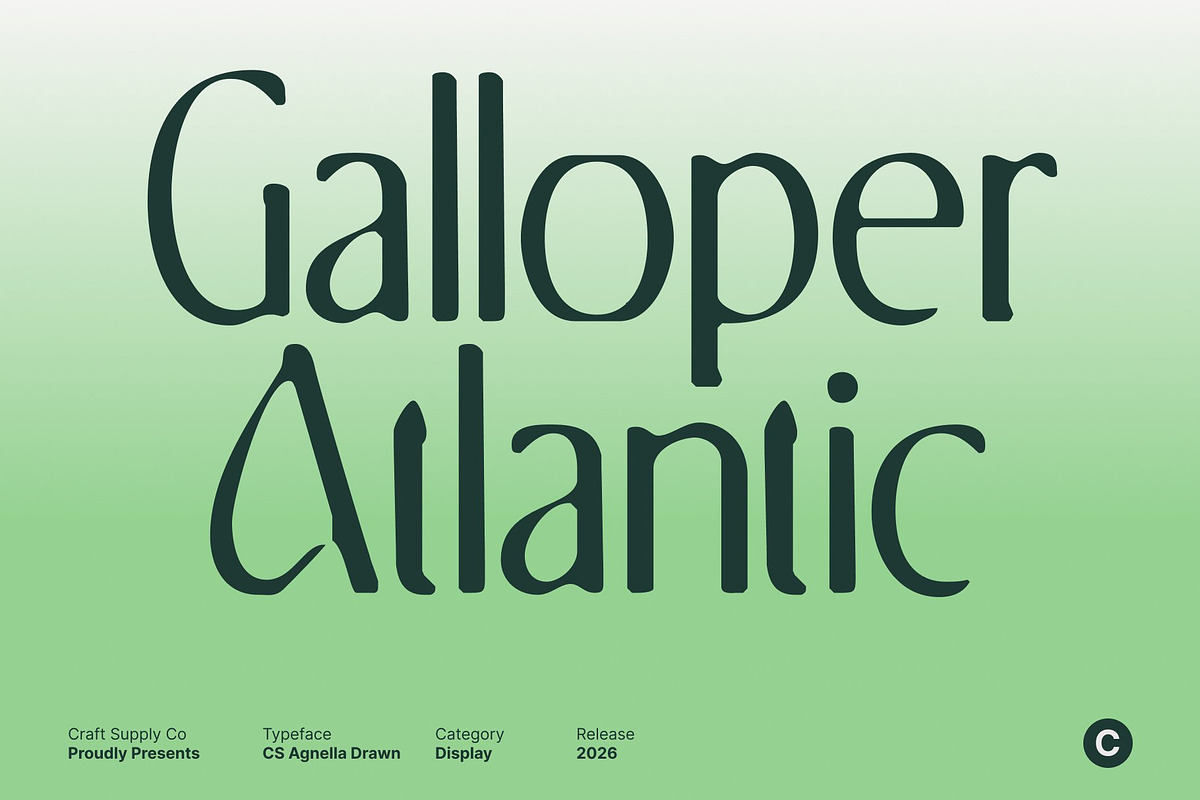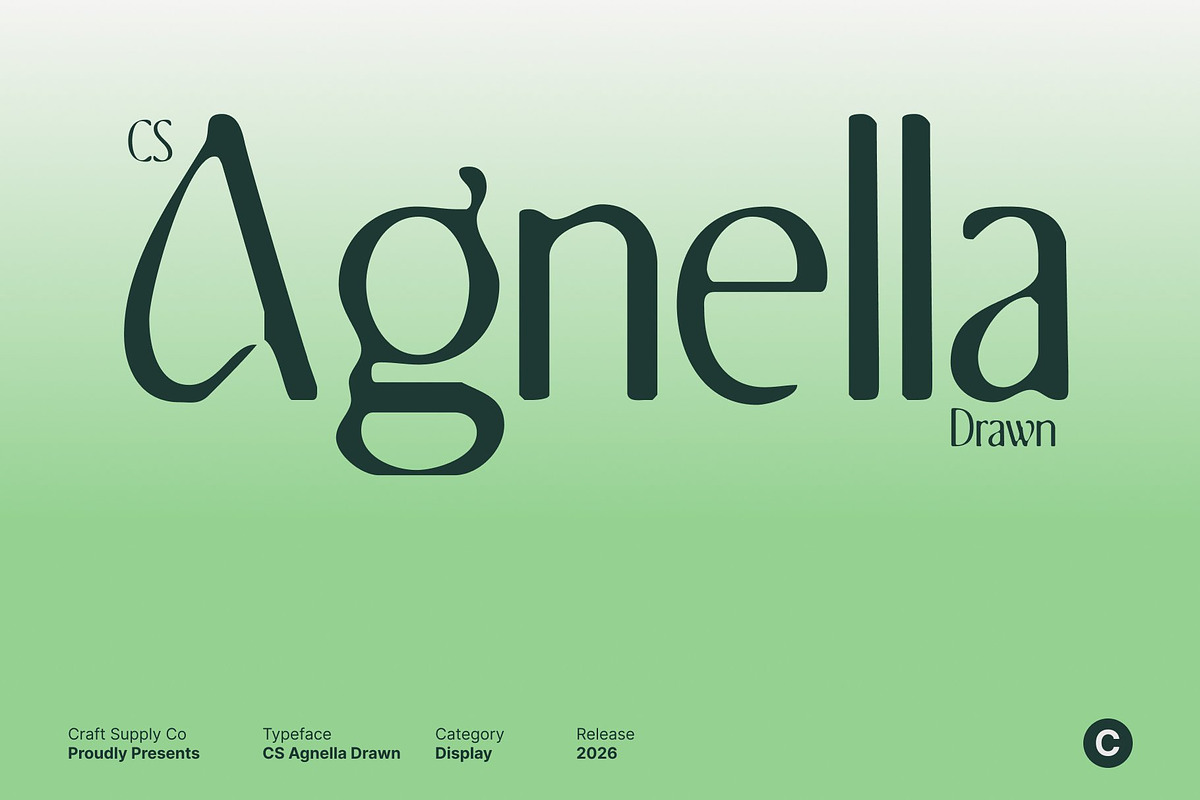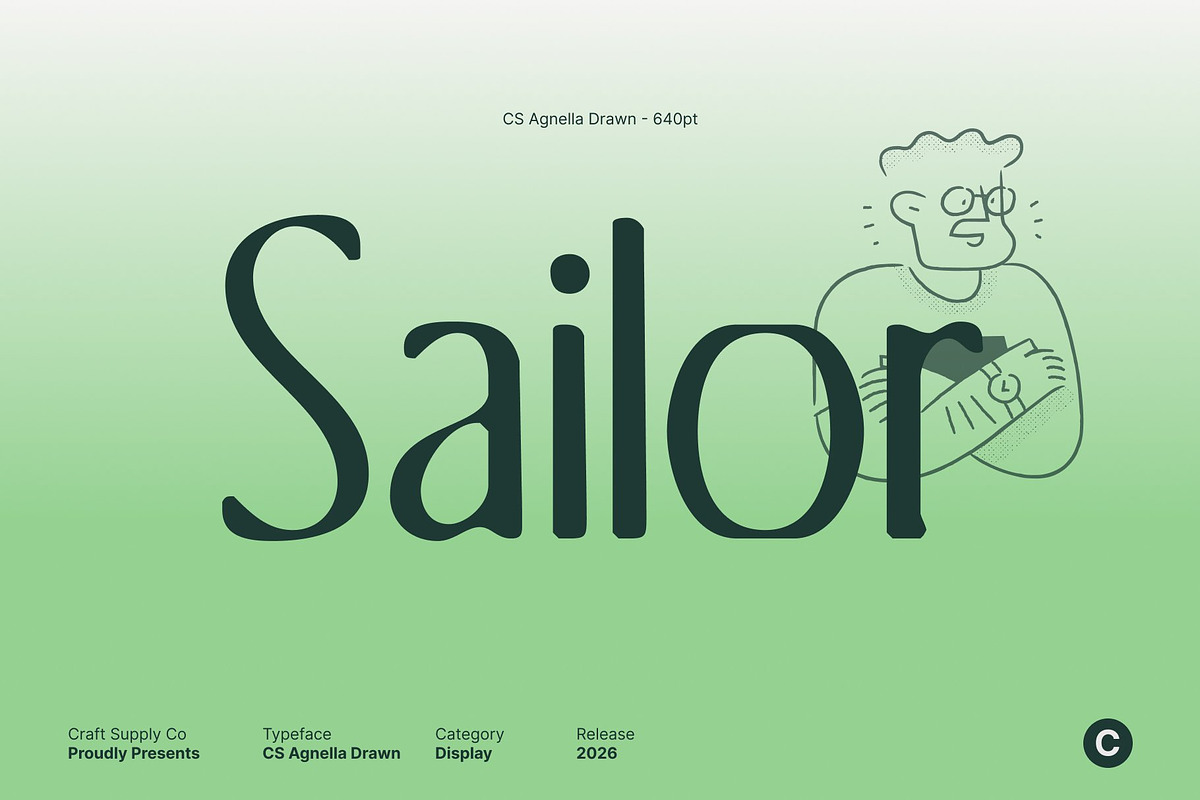
CS Agnella Drawn
CS Agnella Drawn – Elegant Serif with Refined Luxury
Elegant Serif Font with Sophisticated Artistic Character This is an elegant serif font created to express sophistication, refinement, and timeless beauty, now enhanced with a subtle drawn texture. Its carefully crafted curves and balanced proportions deliver a high-end aesthetic, while the handcrafted finish adds warmth and individuality. This combination results in a serif that feels luxurious yet soft, polished yet expressive.
Refined Curves with Soft Handcrafted Detail The defining quality of this font lies in its refined curves and smooth transitions, elevated by a gentle drawn effect. Each stroke flows gracefully, while the organic texture introduces unique character into every letterform. The elegant serifs maintain structure and clarity, while the drawn finish prevents the font from feeling overly rigid, giving it a refined yet artistic presence.
Classic Elegance Meets Modern Sensibility The beautifully bridges classic serif tradition with contemporary design. Its timeless structure ensures versatility across editorial and branding projects, while the drawn texture adds a modern, creative nuance. This balance allows the font to communicate authority, elegance, and sophistication with a human touch that feels current and engaging.
Perfect for Books, Fashion, and Luxury Branding Designed for premium applications, this font is ideal for advanced book typography, editorials, fashion branding, packaging, and luxury marketing materials. Its elegant serif forms combined with a soft artistic texture make headlines, body text, and logos feel distinctive, refined, and visually memorable.